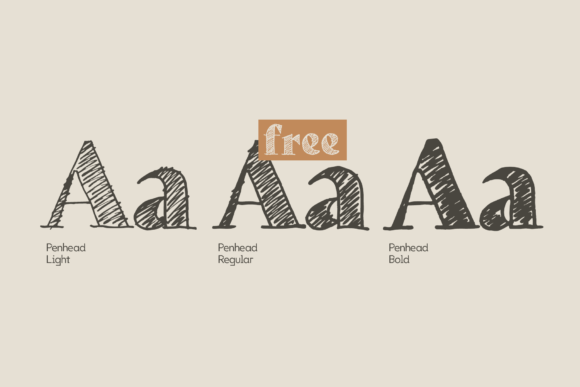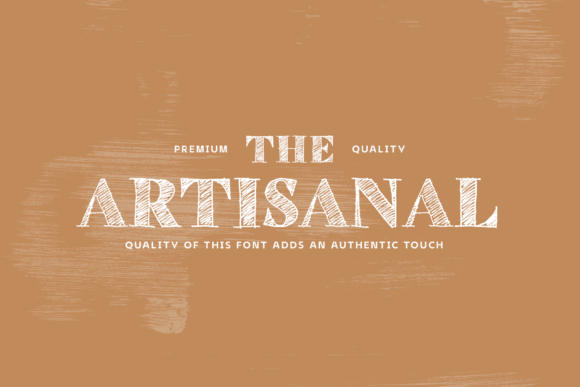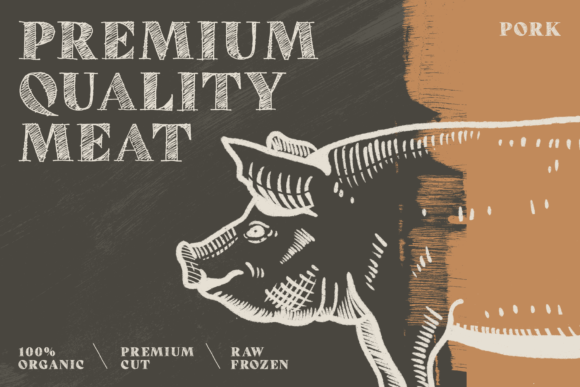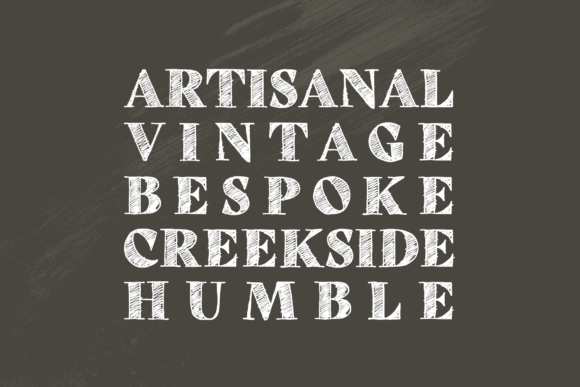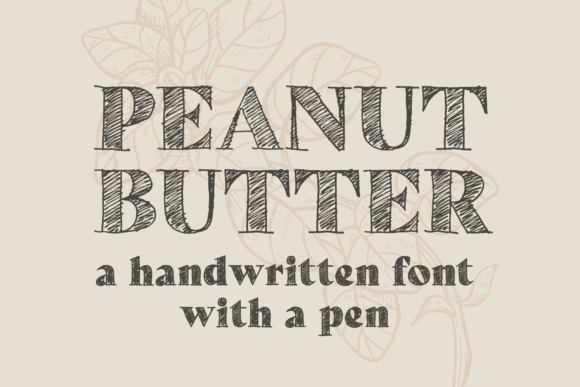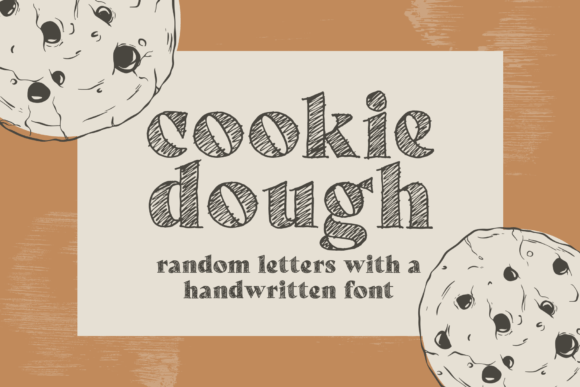
Introduction to Penhead Font
Penhead is a warm, pen font that feels as if it’s been drawn by hand.
It’s friendly and clear, with serifs, giving it a peculiar, old-timey vibe This font comes in three easy-to-use weights — light for a gentle touch, regular for everyday use, and bold for a strong statement.